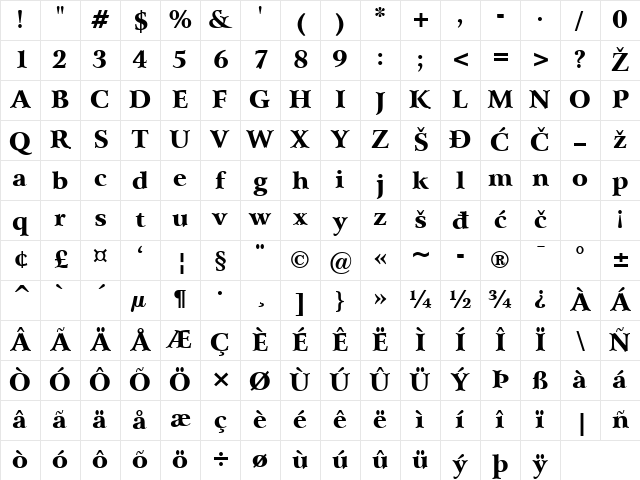
ArrusBlack Regular Free Font
ArrusBlack Regular
ArrusBlack Family
Complete ArrusBlack Regular glyph index. Displaying only characters natively supported by ArrusBlack Regular font.
Design Context for ArrusBlack
ArrusBlack is a composed and adaptable typeface that performs quietly and consistently across a wide range of design contexts.